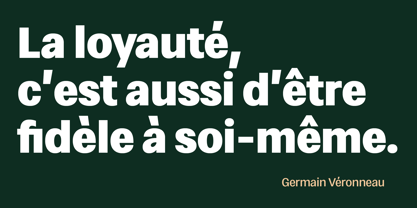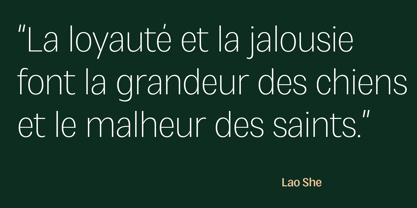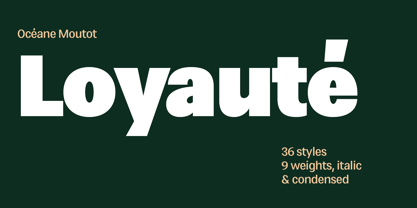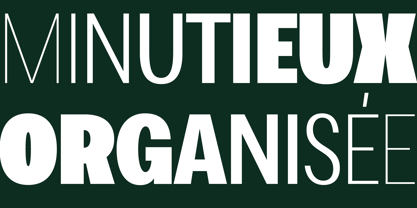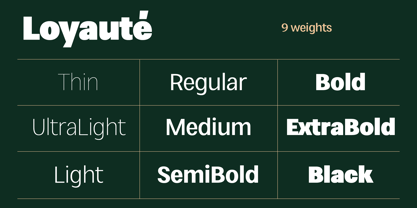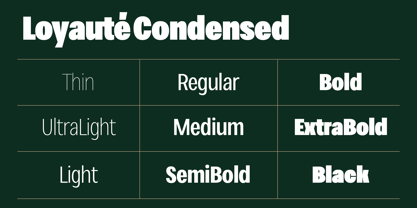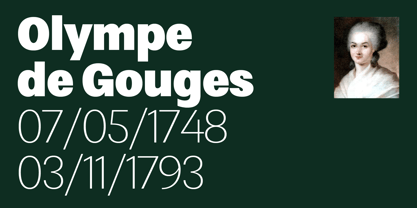
Loyaute
por Océane Moutot
La familia tipográfica Loyaute fue diseñada por Océane Moutot y publicada por Océane Moutot. Loyaute contiene 36 estilos y opciones de paquete familiar. Más información sobre esta familia
Loyauté is a contemporary sans serif built on the idea of quiet strength and lasting character. Bold yet controlled, expressive yet dependable, it balances authority with approachability, a typeface designed to stand firm without shouting. Its structure is clean and confident, with solid proportions and carefully shaped curves that give the design both stability and warmth. Loyauté performs just as well in powerful headlines as it does in structured editorial systems and visual identities. There’s a sense of rhythm in the spacing and a clarity in the forms that make it highly legible, even at demanding sizes and layouts. The family is extensive and versatile, offering 36 styles across 9 weights, each with matching italics and condensed versions. This broad range allows designers to build strong hierarchies, subtle contrasts, and consistent brand voices within a single typographic system. Loyauté is particularly suited for branding, packaging, posters, publishing, and digital interfaces where a voice of confidence, clarity, and modernity is needed. It brings personality without excess, structure without rigidity, a loyal typographic partner for contemporary design.
Acerca de Océane Moutot
Océane Moutot is a talented French graphic and type designer with over nine years of experience in the industry, committed to crafting high-quality, contemporary typefaces. Her work draws inspiration from both historical and vernacular fonts, resulting in a diverse portfolio of exceptional typefaces. Notable creations include Honesty, Sincerity, Brahmana, Lakshmi, Sincerity Stencil, and her latest releases, Anori, Hecate, and Clarinette. Her debut font, Honesty, features a 16-style flared, lapidary, or incised sans typeface family, influenced by the Trajan column carvings and Berthold Wolpe's Albertus (1938). With a focus on design innovation and a unique blend of styles, Océane's typefaces cater to a variety of industries, making her work a valuable asset for graphic designers and brands seeking to enhance their visual identity.